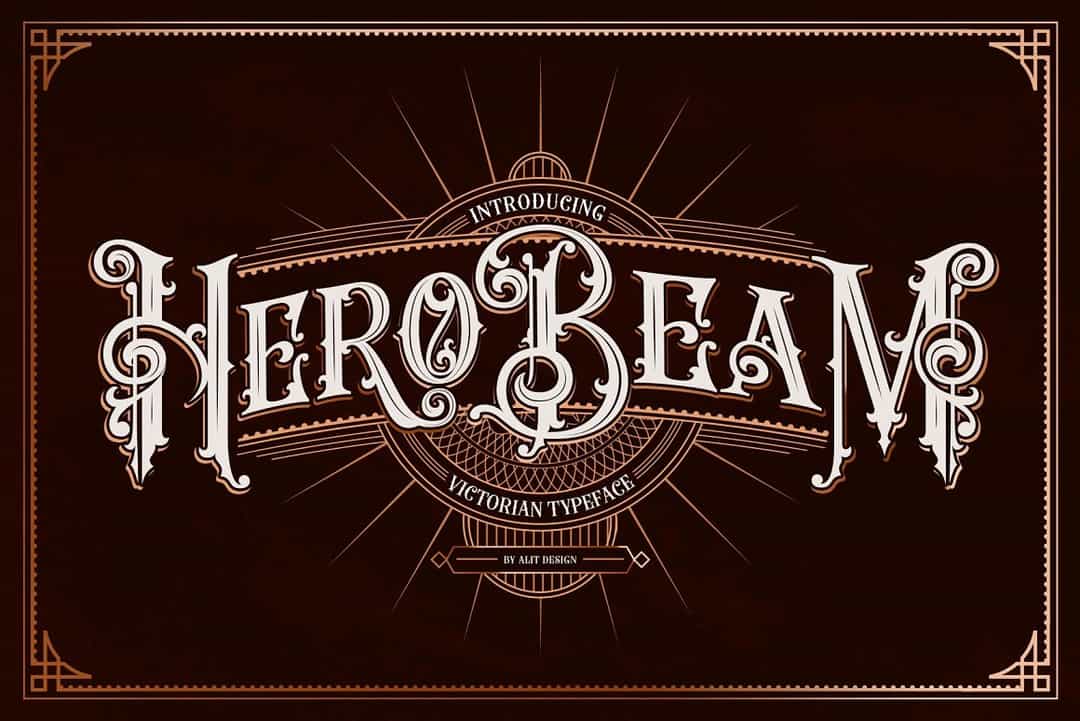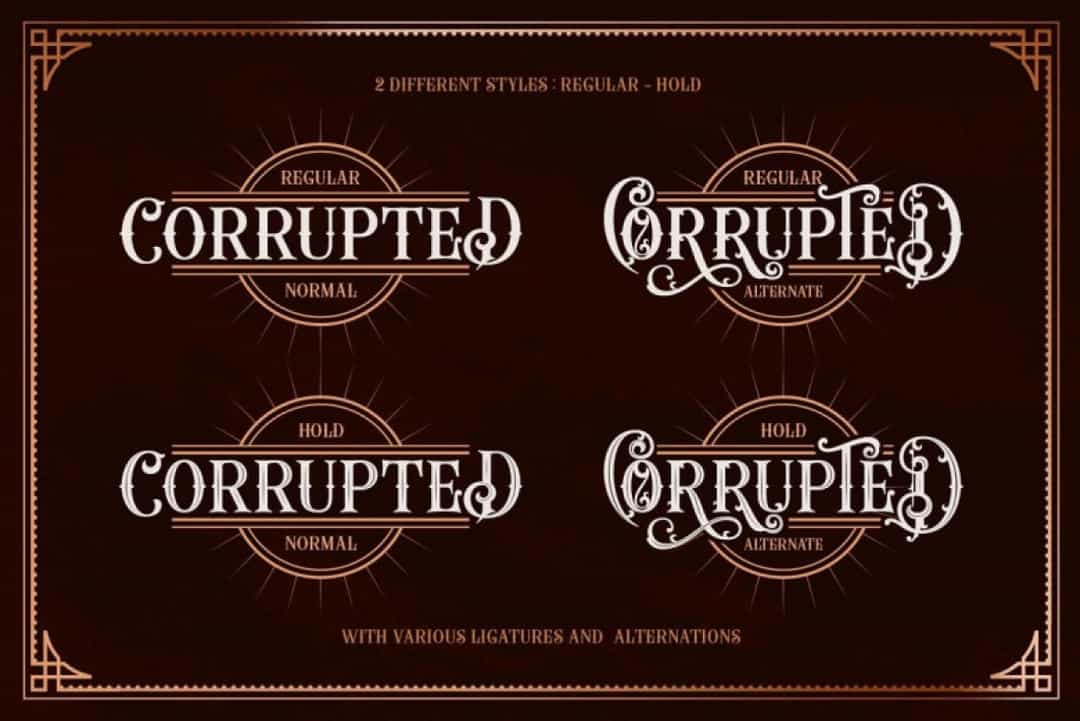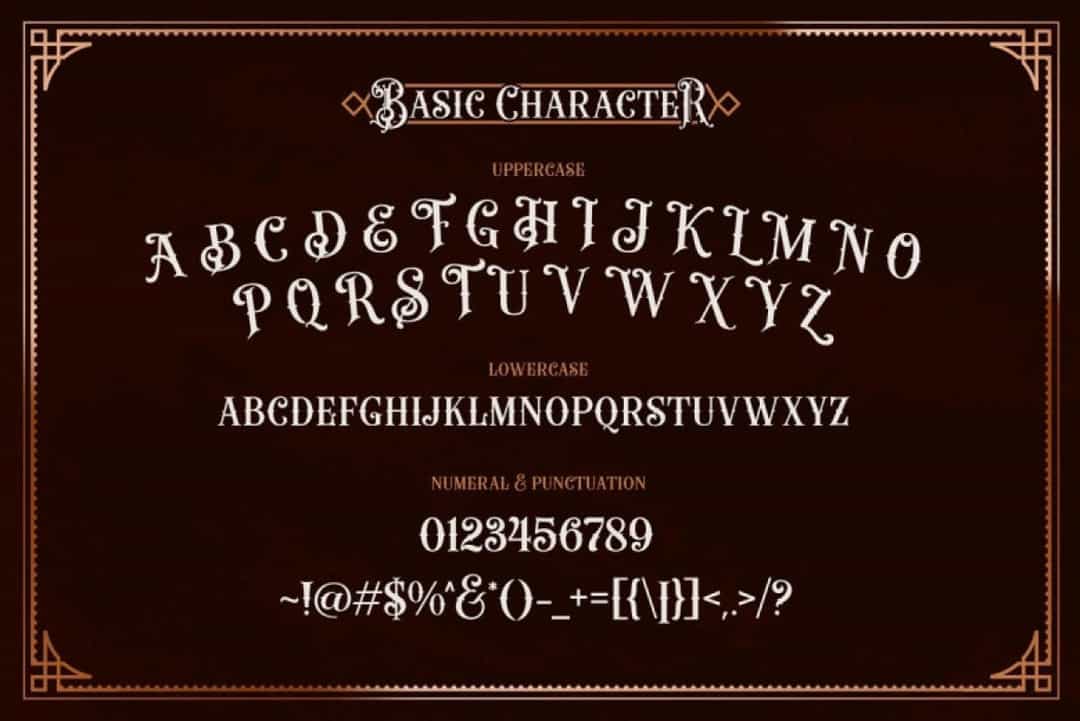
Hero Beam Typeface was inspired by writing during the European empire era. Featuring Victorian elegance with an elegant yet cool swash, Hero Beam can be used for classic Victorian-themed packaging whiskey, beer, barbershops, pomade stores, tattoo studio logos and much more.